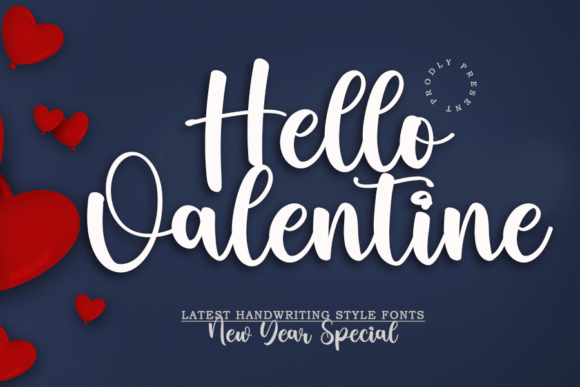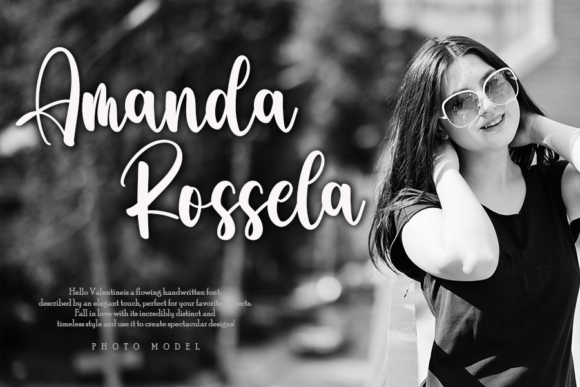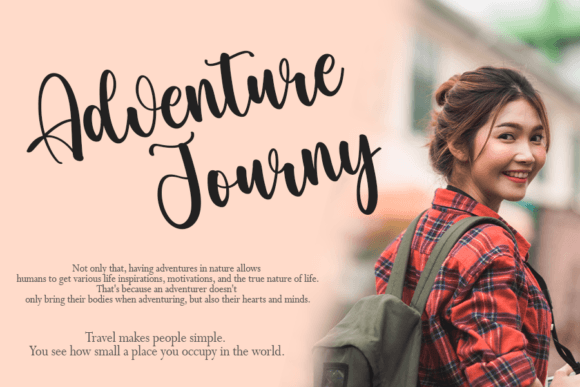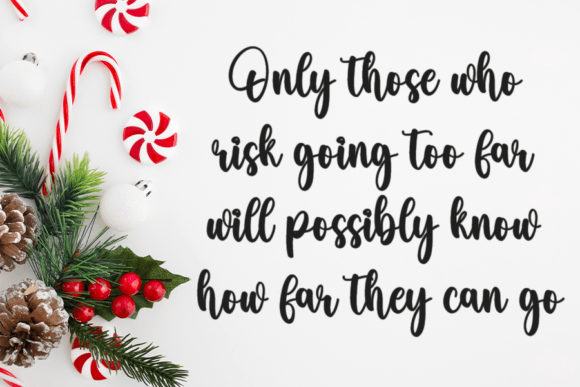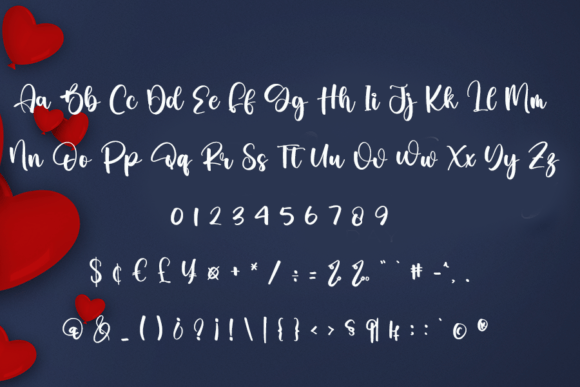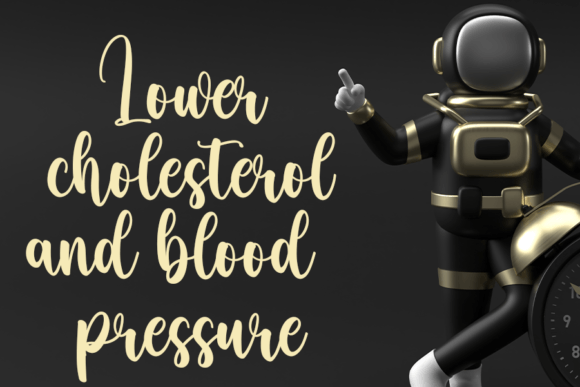
Hello Valentine Font
A Stylish Handwritten Typeface with Timeless Elegance
Hello Valentine Font is a stylish handwritten script that combines the charm of timeless classic calligraphy with a contemporary atmosphere. With its impeccable form and balanced, varied strokes, this font brings a refined and elegant touch to your projects. Whether you’re designing wedding invitations, logos, branding materials, or social media content, the Hello Valentine adds a romantic, personalized flair that enhances the beauty of any design.
Perfect for Wedding Invitations and Special Occasions
For wedding invitations and special occasion stationery, the Hello Valentine Font is an excellent choice. Whether you’re designing RSVP cards, thank-you notes, save-the-dates, or event programs, this font provides a romantic, elegant touch to your designs. Its classic calligraphy-inspired design ensures that your invitations feel luxurious and timeless, making them perfect for weddings, anniversaries, and other special celebrations. The Hello Valentine  brings a personalized charm to your event materials, ensuring they leave a lasting impression.
Ideal for Logos and Branding Projects
For logos and branding, the Hello Valentine Font brings a unique, refined touch to your business identity. Whether you’re designing a luxury brand logo, personal brand, or corporate materials, this font enhances your branding with a stylish handwritten feel that makes your brand stand out. The Hello Valentine  works beautifully for businesses in industries like fashion, beauty, and lifestyle, adding an element of elegance and luxury to your visual identity.
Great for Greeting Cards and Invitations
For greeting cards and invitations, the Hello Valentine  adds a charming, romantic feel to your designs. Whether you’re creating birthday cards, thank-you notes, or holiday greetings, this font ensures your cards look elegant and personalized. Its graceful strokes and delicate design make it ideal for both formal and casual occasions. The Hello Valentine Font is perfect for any occasion that calls for a timeless, romantic touch, leaving your recipients with a lasting impression.
Ideal for Product Packaging and Labels
For product packaging and labels, the Hello Valentine Font adds a luxurious and refined look to your designs. Whether you’re designing product labels, gift packaging, or seasonal items, this font provides a premium and personalized touch to your branding. The Hello Valentine Font is perfect for artisan products, luxury goods, and custom gifts, helping your products stand out with an elegant, artistic appeal that resonates with quality and sophistication.
Versatile, Legible, and Elegant
Despite its delicate handwritten design, the Hello Valentine Font remains legible and easy to use. Its well-spaced characters and consistent strokes ensure that your text is clear and readable, even for longer passages or smaller sizes. Whether you’re using it for headlines, captions, or body text, this font strikes the perfect balance between creativity and readability, making it suitable for a wide range of design applications, from print to digital media.
The Hello Valentine Font is easy to use and integrates smoothly into most design software. Whether you’re working on wedding invitations, logos, greeting cards, or social media content, this font ensures your designs look polished and professional while maintaining a personalized touch. Its versatility makes it perfect for both print and digital media, giving you the flexibility to use it across various projects with ease.
Add Elegance and Romance to Your Designs with Hello Valentine Font
If you’re looking for a stylish handwritten that adds a romantic, elegant touch to your designs, the Hello Valentine Font is the perfect choice. Whether you’re designing wedding invitations, logos, greeting cards, or social media posts, this font will help you create memorable, refined designs that stand out. Let the Hello Valentine Fon bring a timeless, graceful flair to your projects and leave a lasting impression with its elegance and romantic charm.